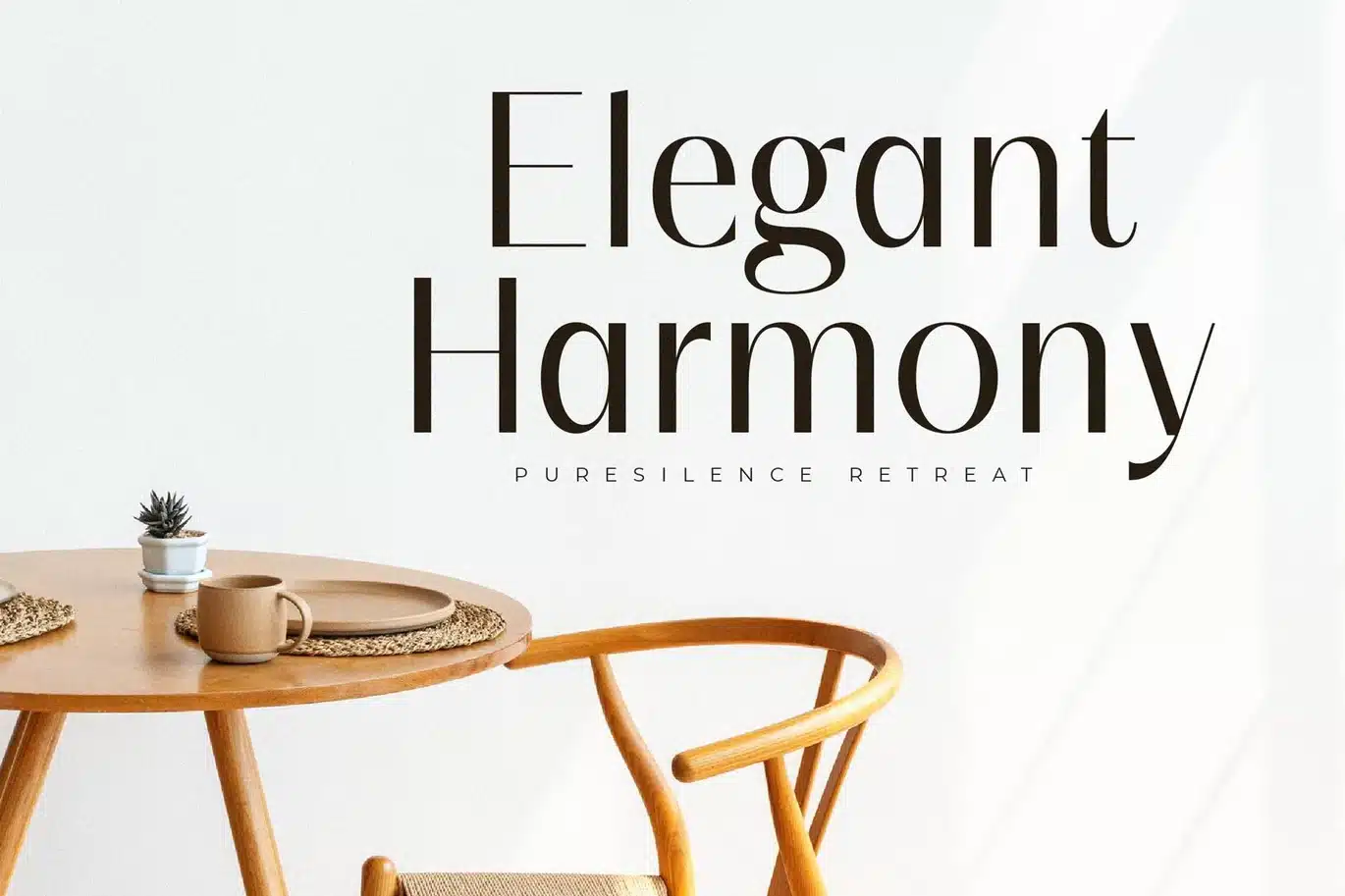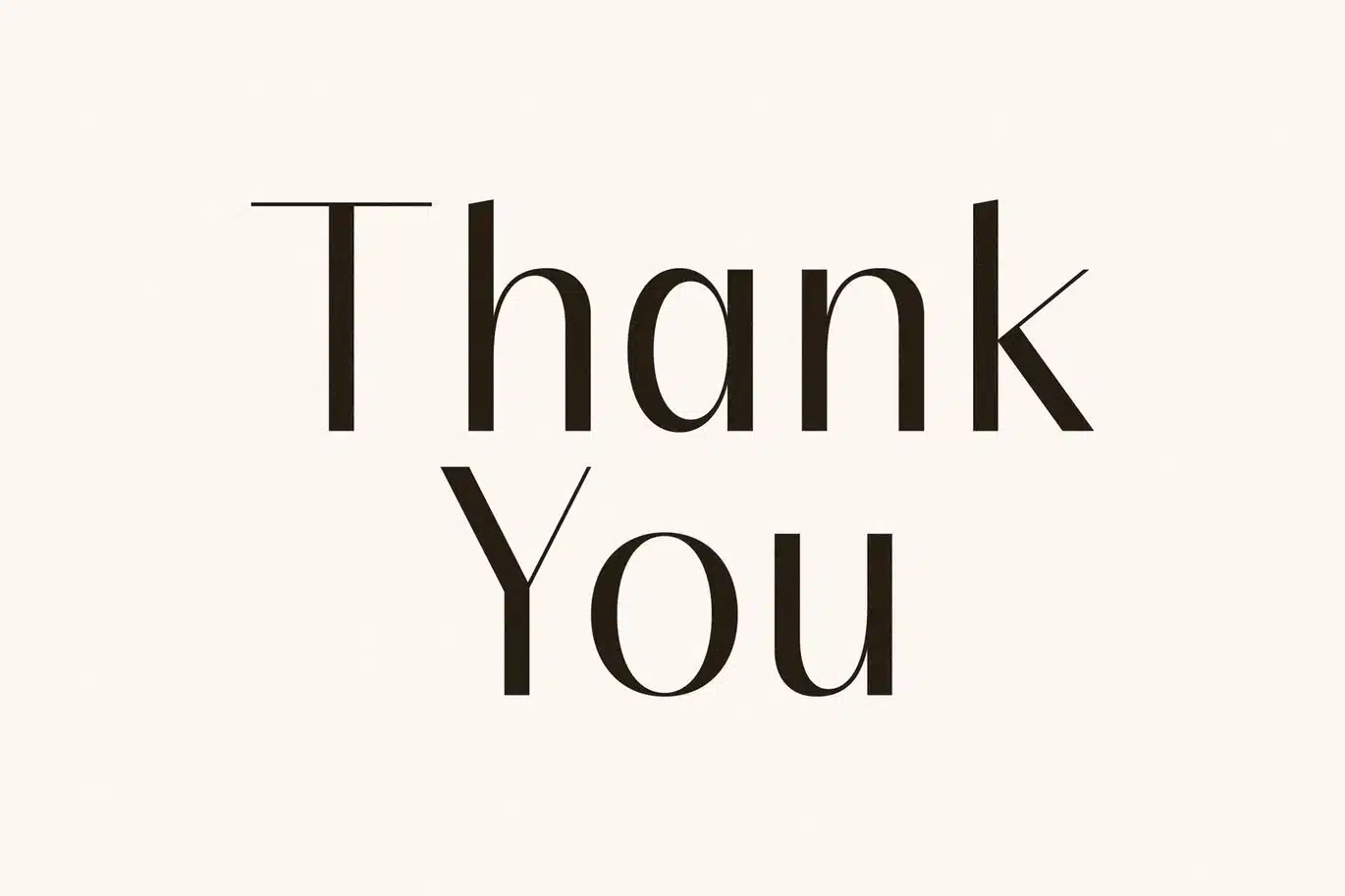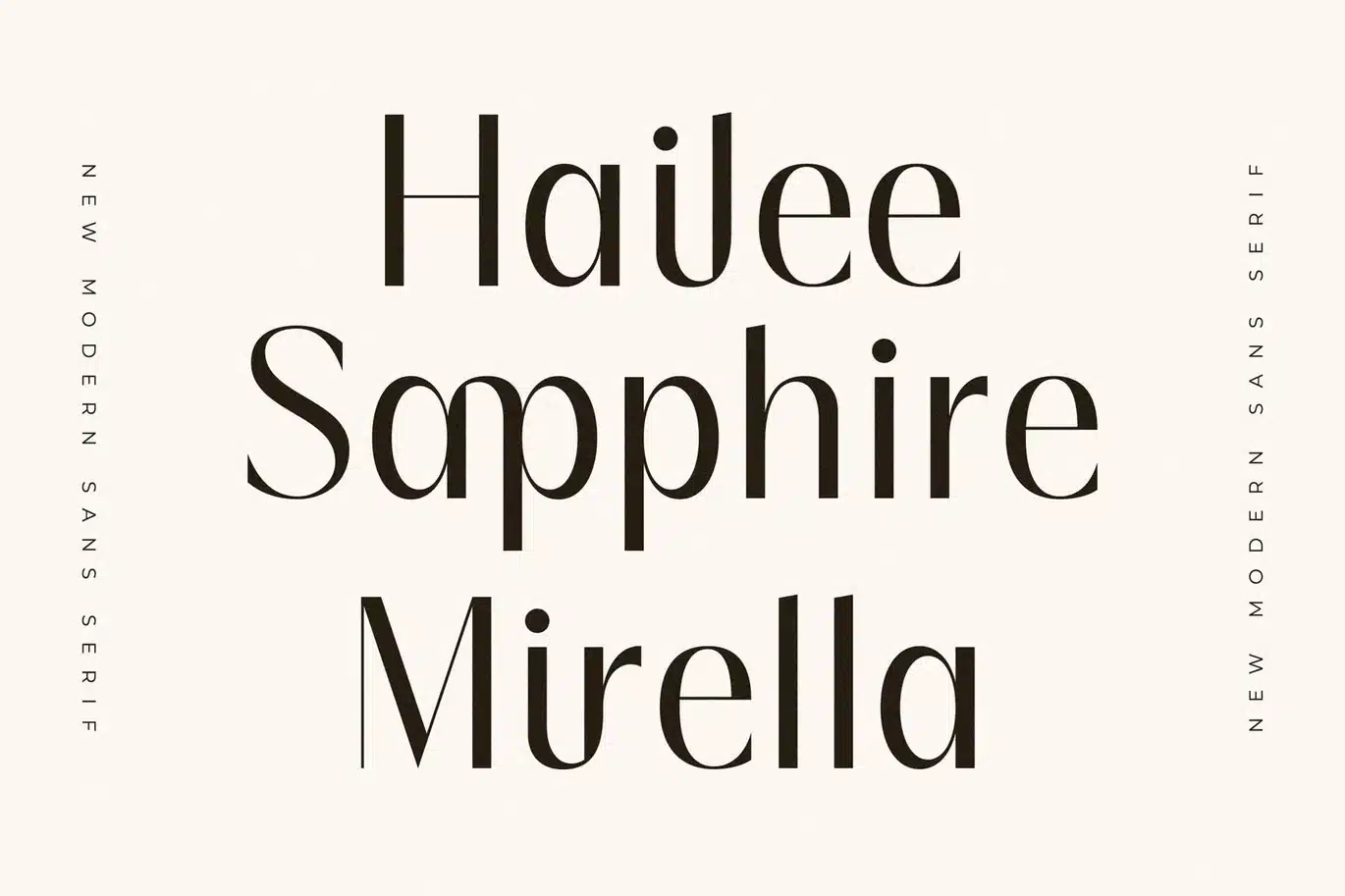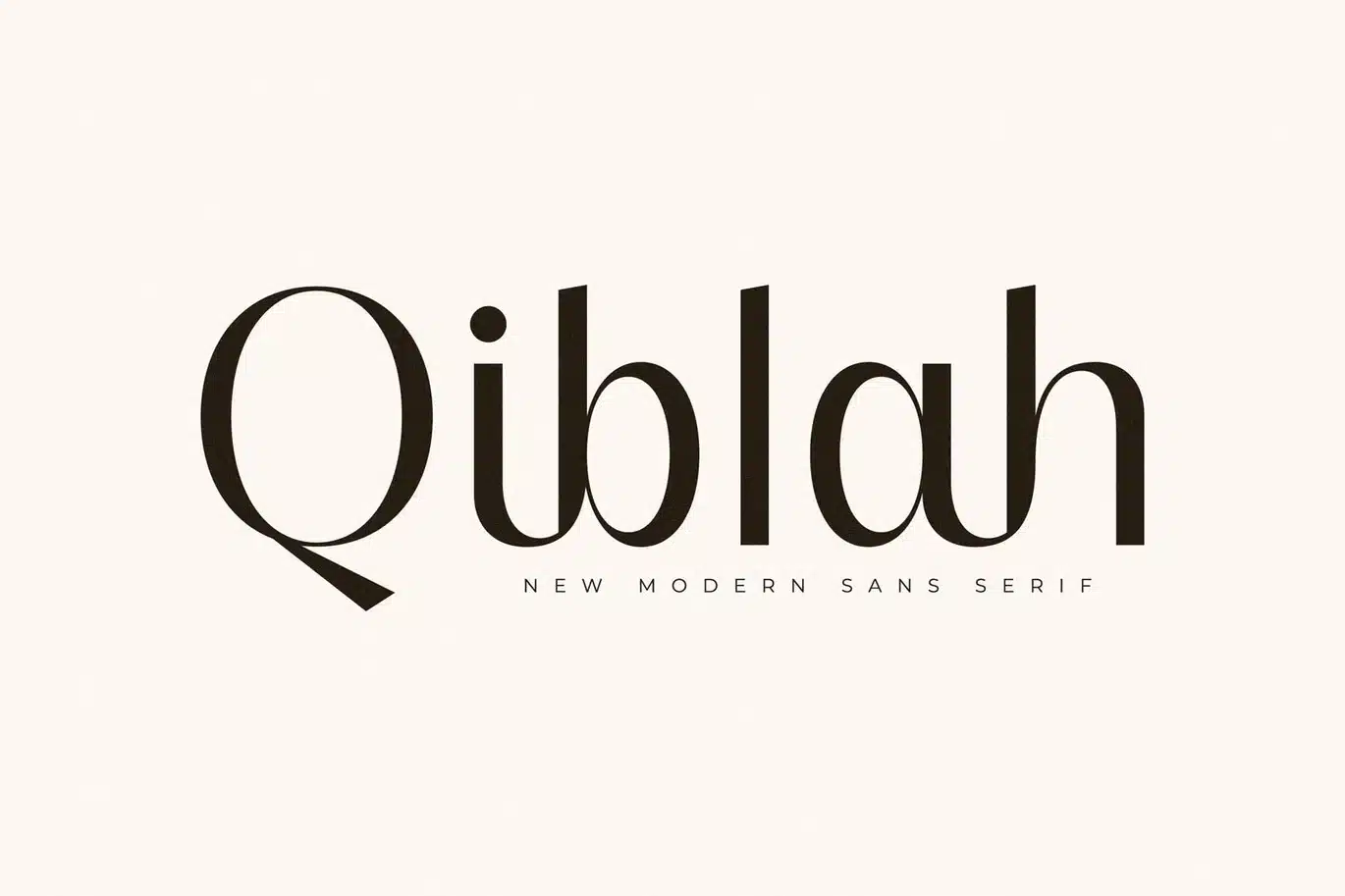
Qiblah New Modern Sans Serif Font
Hi ladies & gentlemen, this is one of our fonts suitable to complement your digital and printed creative products. This font is perfect for posters, social media posts, branding, personal projects, etc.